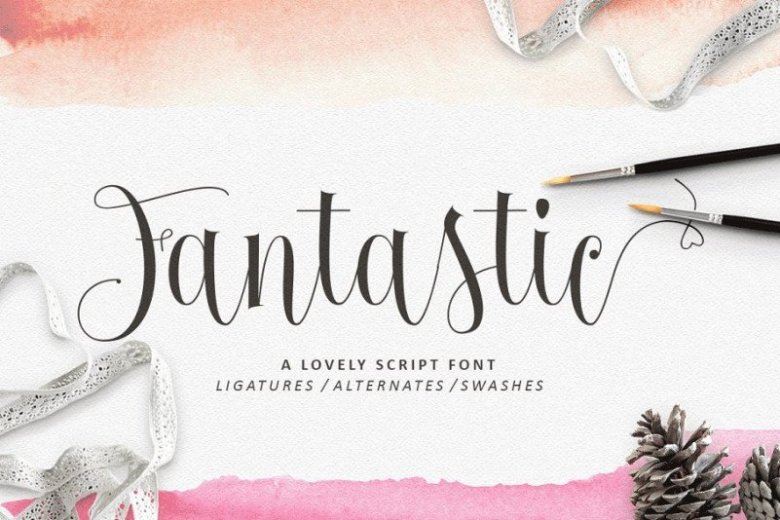
Fantastic Calligraphy Font
A beautiful new hot Calligraphy Font. The style of handwriting and irregular but still elegant, and you will enjoy to use this font style. Introducing Fantastic Font. Fantastic – a new fresh & modern script with a sweet calligraphy-style, decorative characters So beautiful on invitation like greeting cards, branding materials, business cards, quotes, posters, and more!